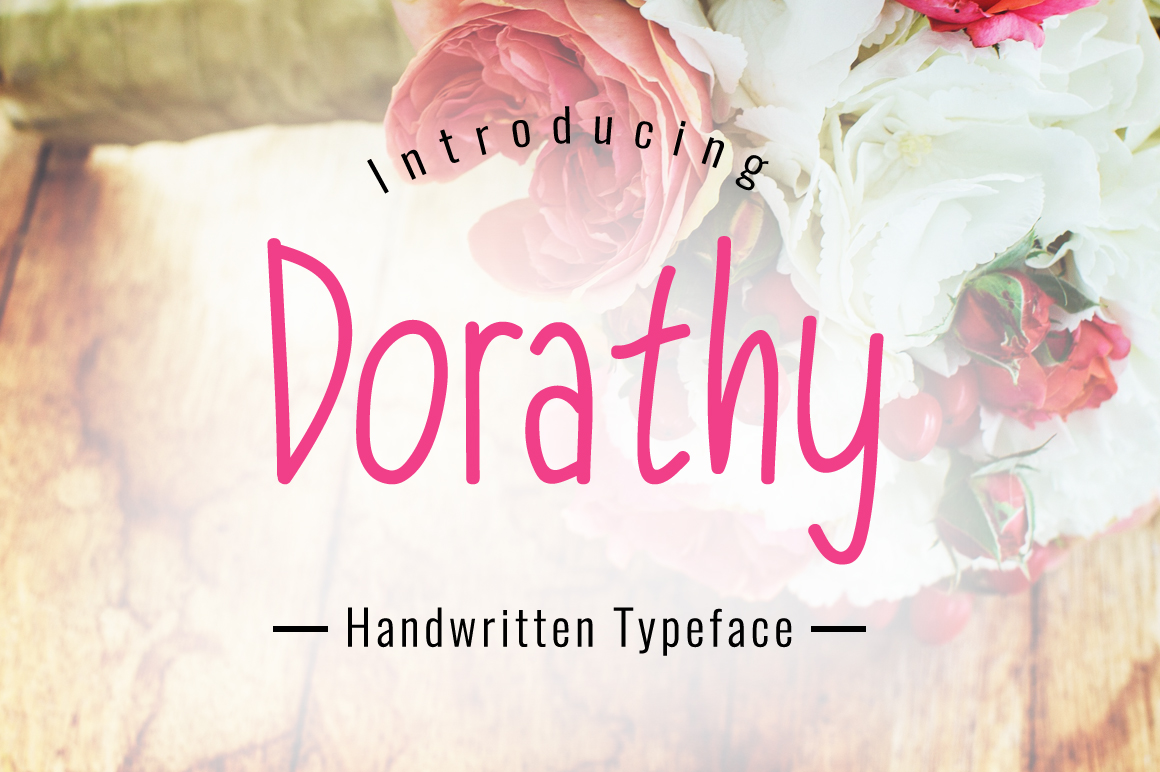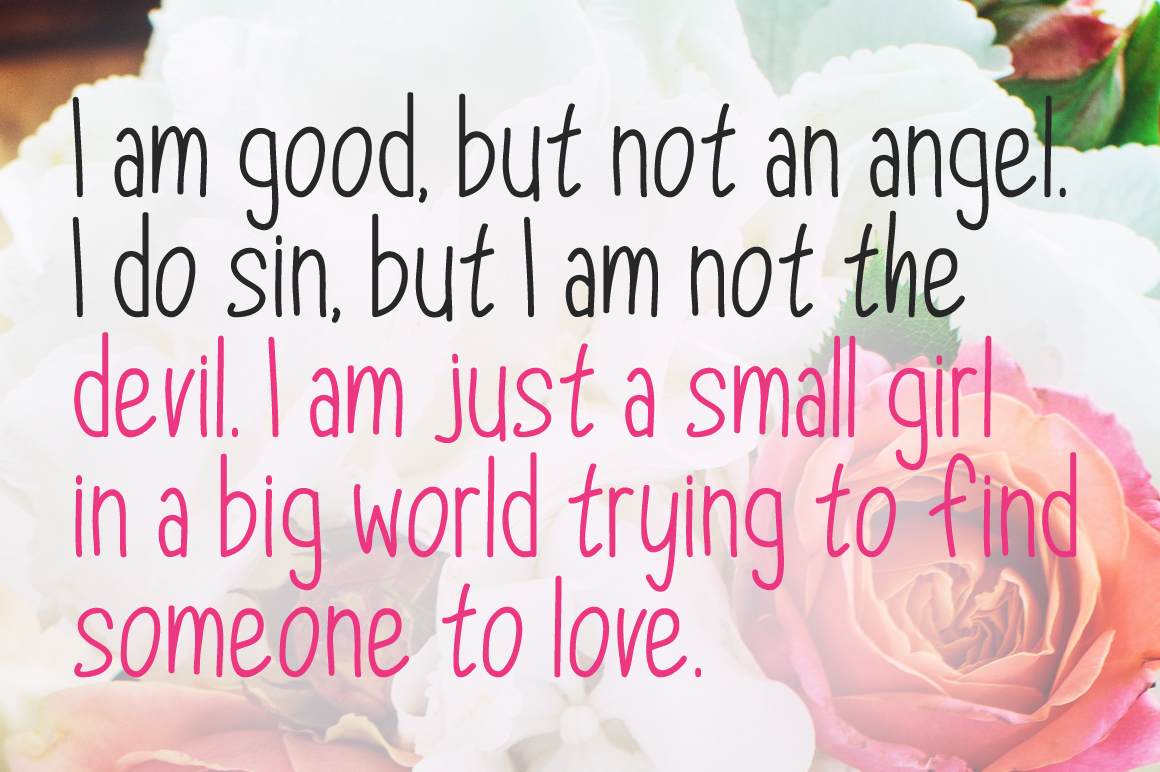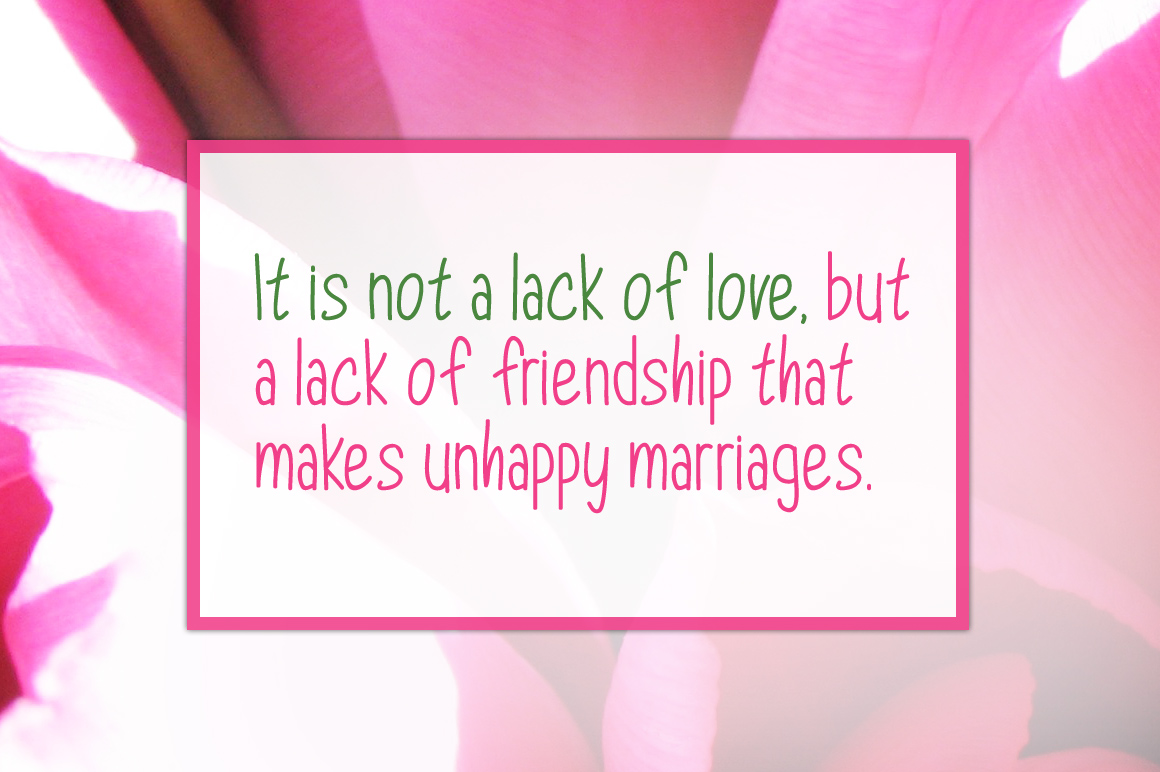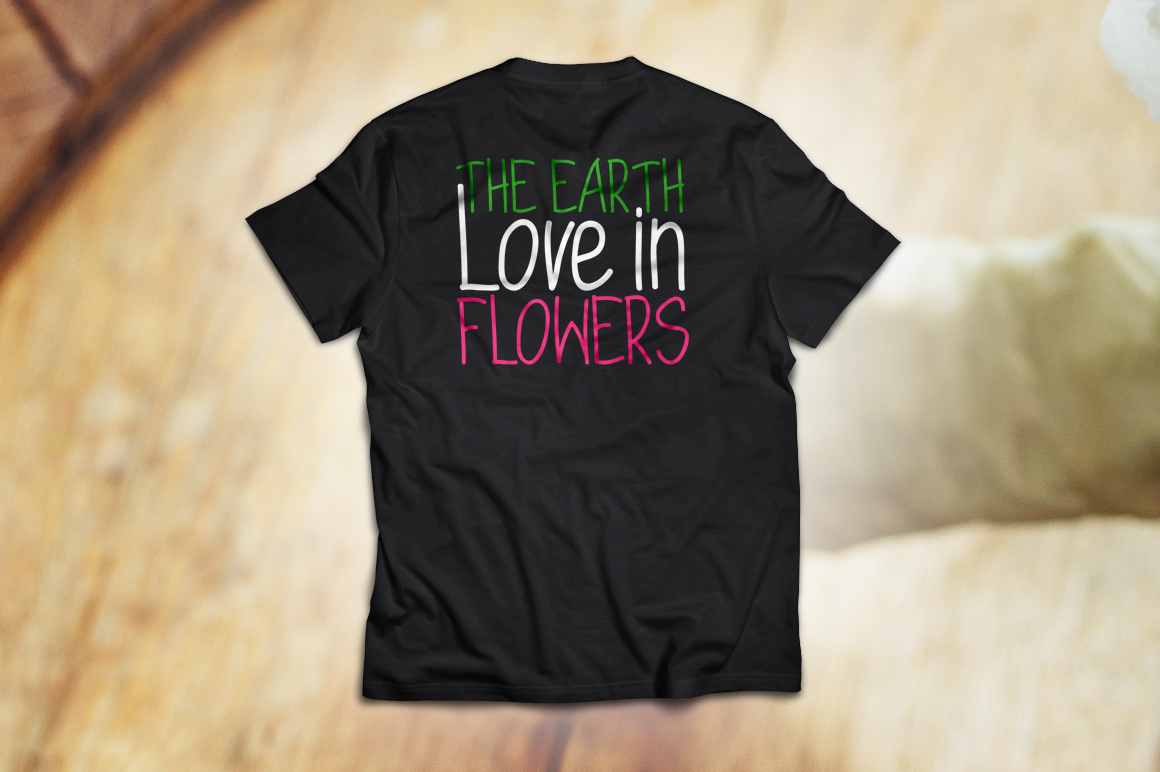
HomeScript FontsDorathy Font Script Fonts Dorathy Font FacebookXPinterestWhatsApp Dorathy Font Poster 2 Dorathy Font Poster 3 Dorathy Font Poster 4 Dorathy Font Poster 5 About Dorathy Font Dorathy is soft, feminine typeface. DOWNLOAD NOW People also explored Boghota Font Cucumber Font Black Rose Font Sappire Font January is Comming Font Wolfburg Font Larsson Grace Lotus Mandala Monogram Font Instadaily Hastags Font 294 0 TagsDorathy Font Previous articleRasterize FontNext articleBotak Font LEAVE A REPLY Cancel reply Comment: Please enter your comment! Name:* Please enter your name here Email:* You have entered an incorrect email address! Please enter your email address here Website: Save my name, email, and website in this browser for the next time I comment. Personal Use Free Adelaide Personal Use Free Read more about this font Zero Hour Personal Use Free Read more about this font Remember Personal Use Free Read more about this font Shrag Script Personal Use Free Read more about this font BLOG How to Cut Any Font on Cricut: Convert a Font to SVG (Free) Turn any font into a clean SVG so it cuts crisp on Cricut - a quick 3-step workflow using a free font-to-SVG tool. How to Install and Use Fonts on Windows, macOS, and Web Projects Best Fonts for YouTube Videos: Make Your Thumbnails Stand Out Top 7 Google Fonts Alternatives for Faster and Privacy-Friendly Web Design (2025)